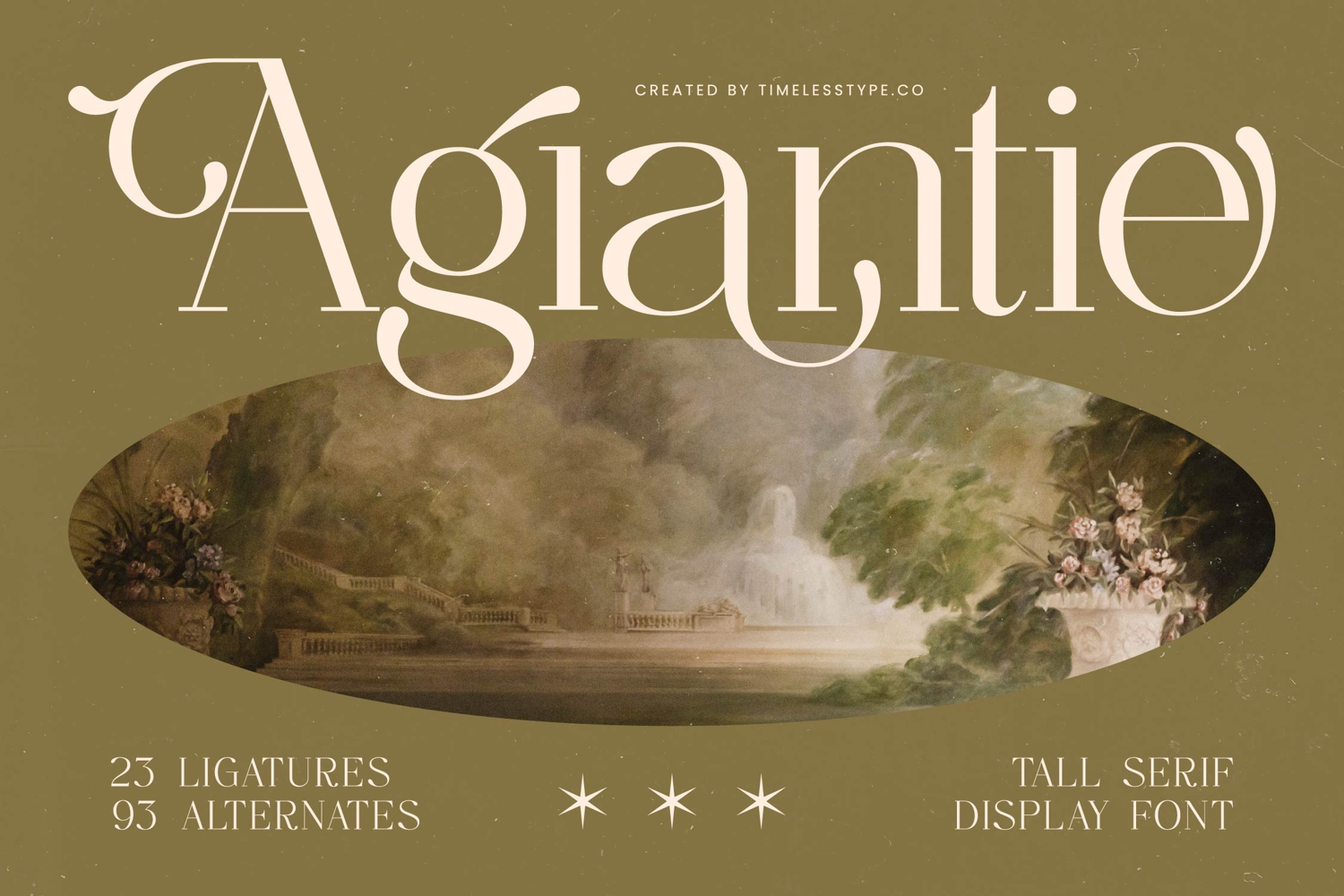
Agiantie - Tall Serif Display Font
Elevate your design projects with unparalleled elegance and distinction. Introducing Font Agiantie - Tall Serif Display Font , a truly sophisticated typeface meticulously crafted to command attention. Its striking high-contrast letterforms and graceful, tall serifs exude a sense of classic refinement, blending historical allure with a contemporary aesthetic. This font is designed to instantly add a touch of prestige and exclusivity to any visual communication.
Unleash a world of creative possibilities with the extensive features of Font Agiantie - Tall Serif Display Font . Boasting an impressive collection of 23 ligatures and 93 alternates, this font offers unparalleled design flexibility, allowing for truly unique and personalized typographic compositions. With its extensive multilingual support, Font Agiantie - Tall Serif Display Font Serif Display adapts seamlessly across global markets, making it incredibly versatile for international projects and ensuring your message resonates universally.
Designed for impact, Font Agiantie - Tall Serif Display Font is the quintessential choice for projects demanding an air of sophistication and luxury. It is perfect for luxury branding, high-end packaging, editorial design, fashion magazines, exclusive invitations, and captivating logotypes. This typeface ensures your brand identity is not just seen, but profoundly felt, leaving a lasting impression of timeless quality and refined taste.